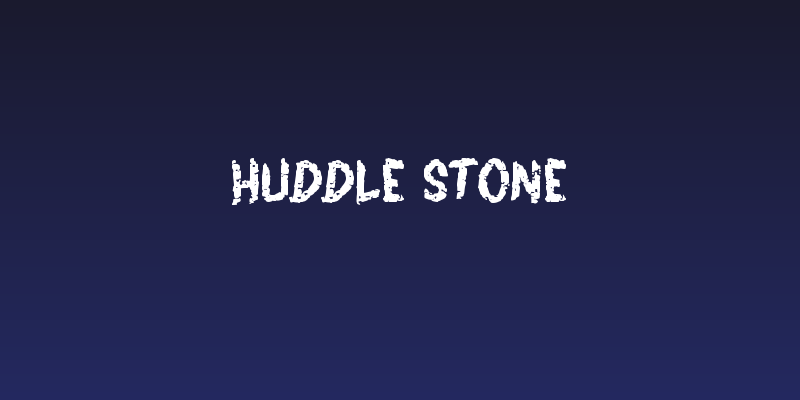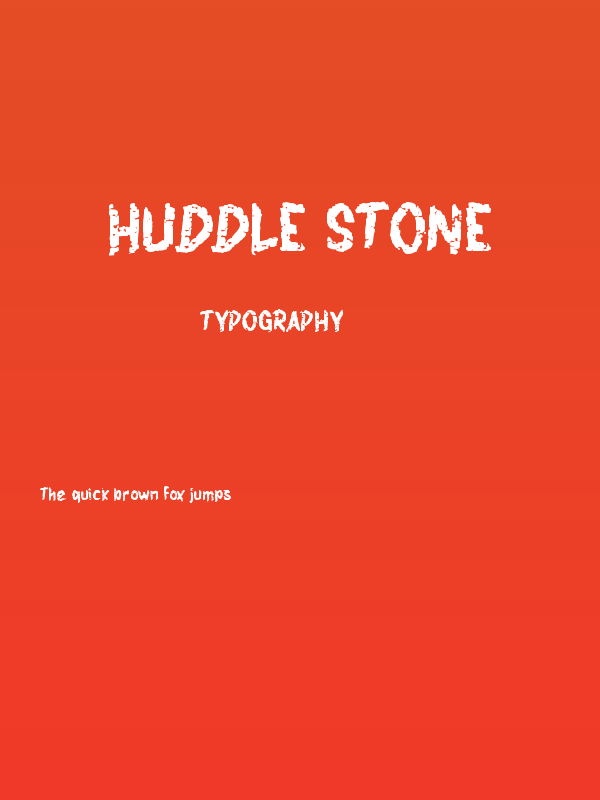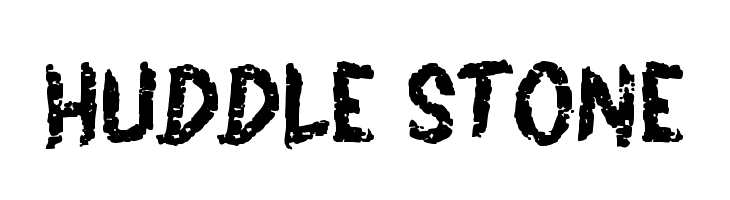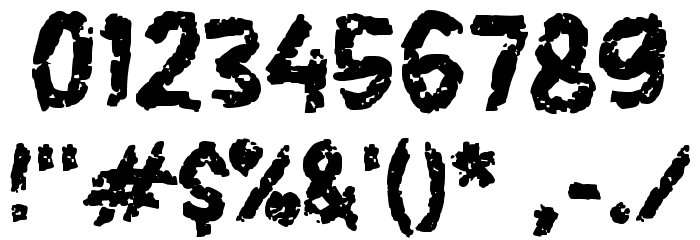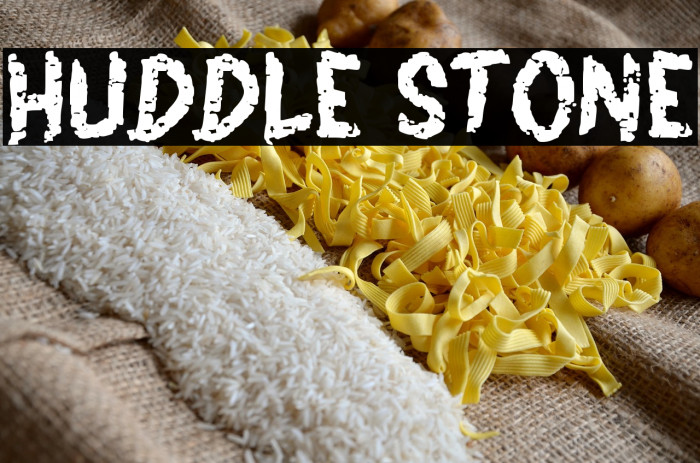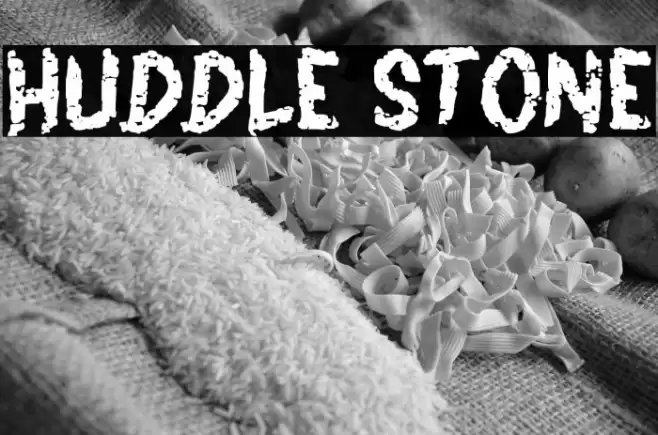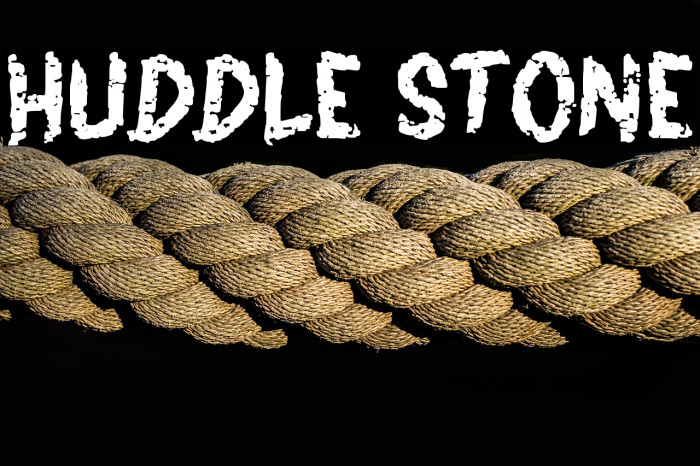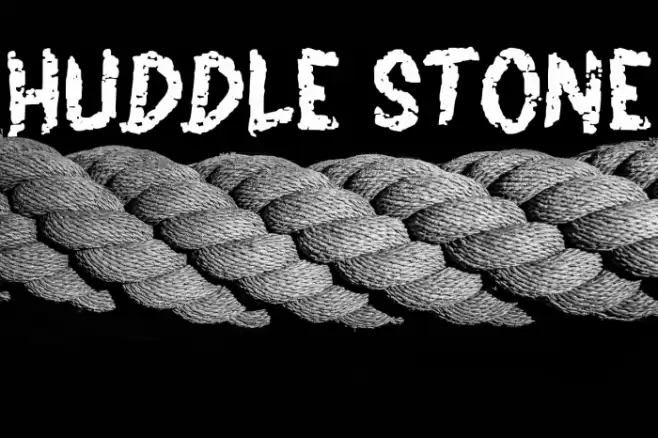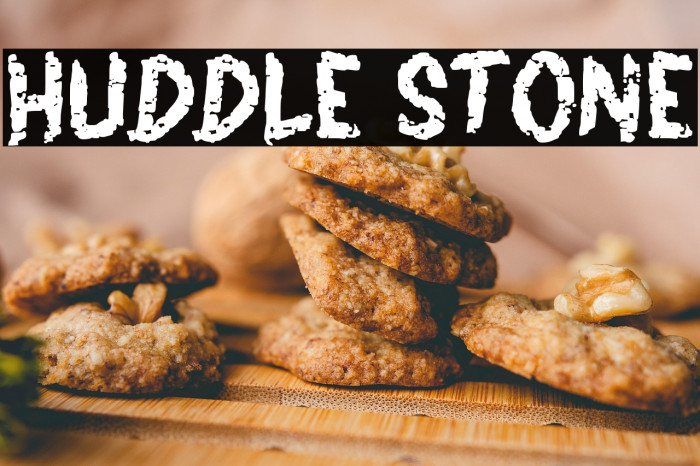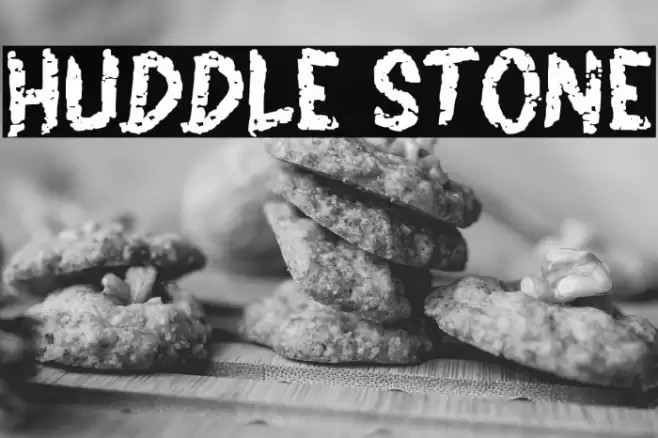
HUDDLE STONE Font
✎ Distorted Eroded
| फ़ॉन्ट परिवार | h Huddle Stone |
| श्रेणियाँ | Distorted Eroded |
| समग्र शैली | Decorative |
| उपयोग का मामला | Headlines, Logos, Posters |
| सुझाए गए प्रोजेक्ट | Ideal for posters, album covers, branding for outdoor or adventure-themed products, and any design needing a bold, textured look. |